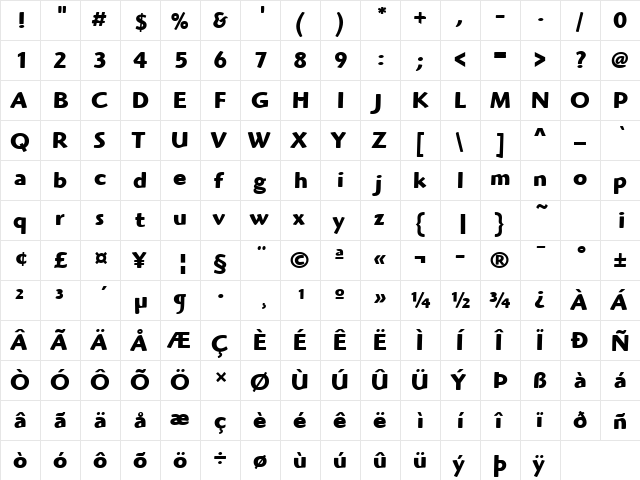
Highlander ITC TT Bold
Design Context for Highlander ITC TT Typeface
Highlander ITC TT offers clean, dependable letterforms without strong stylistic allegiance, making it a practical choice for designers who need flexibility. The heavy weight commands attention and anchors typographic hierarchies.